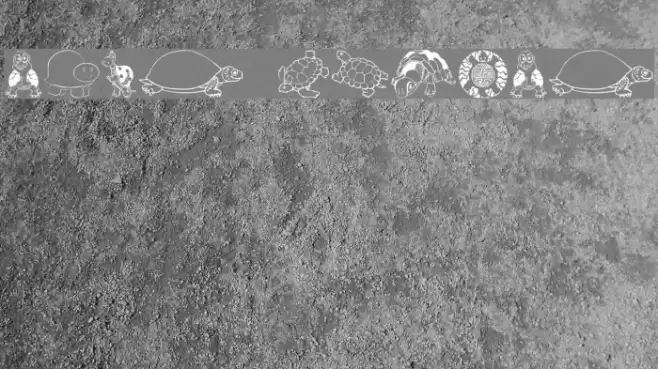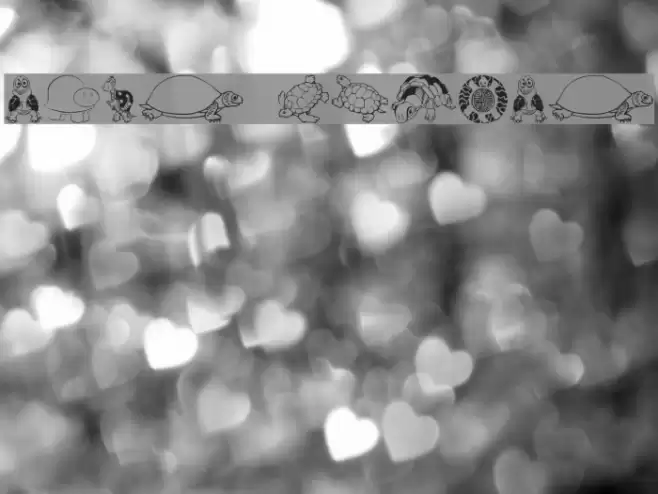
Keyas Turtles Font
Keyas Turtles Description
A decorative dingbat font featuring a variety of cartoon and stylized turtle illustrations, each glyph representing a different turtle design rather than traditional alphanumeric characters.
A dingbat font with assorted turtle illustrations from Dingbats fonts.
- Proposed Projects: Children’s books, educational materials, animal-themed party invitations, playful branding, stickers, and scrapbooking.
- Overall Style: Playful, Decorative
- Use Case: Illustrative accents, icons, and decorative elements.